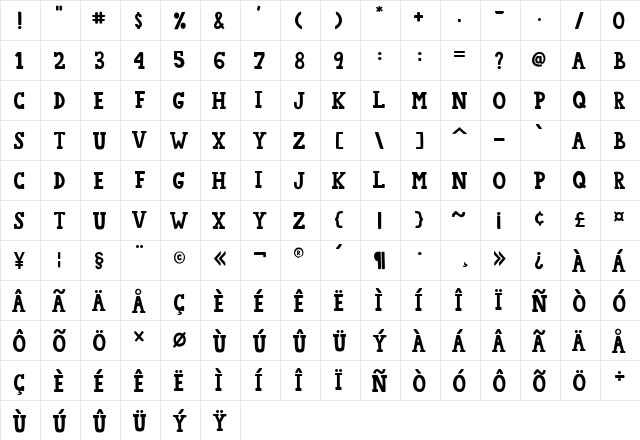
College Star Full Regular
Design Context for College Star Full Typeface
College Star Full has the bold swagger of sports branding: strong, assertive letterforms designed to dominate headlines and jerseys alike.
A natural choice for gym brands, fantasy sports, jersey lettering, and action-driven headlines.
Pro Tip: Use College Star Full in all-caps headlines where its athletic energy can fully express itself. Pair with a solid, simple sans for supporting text.